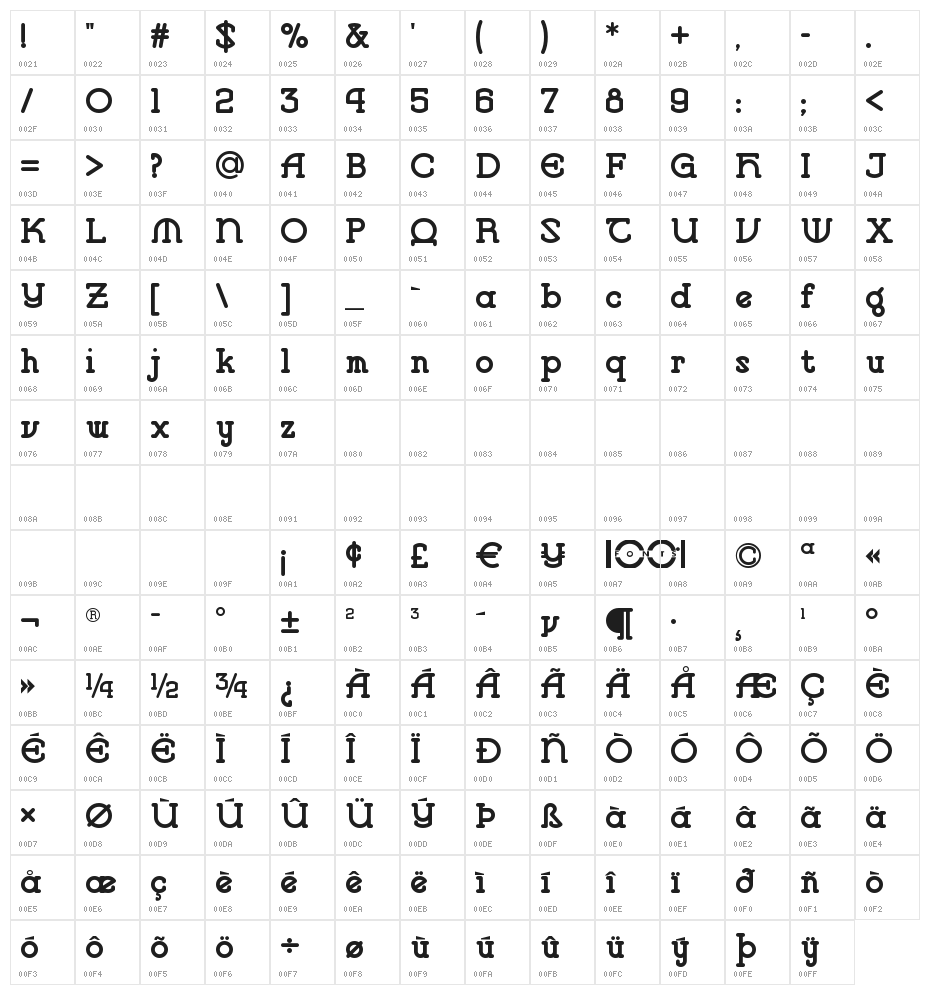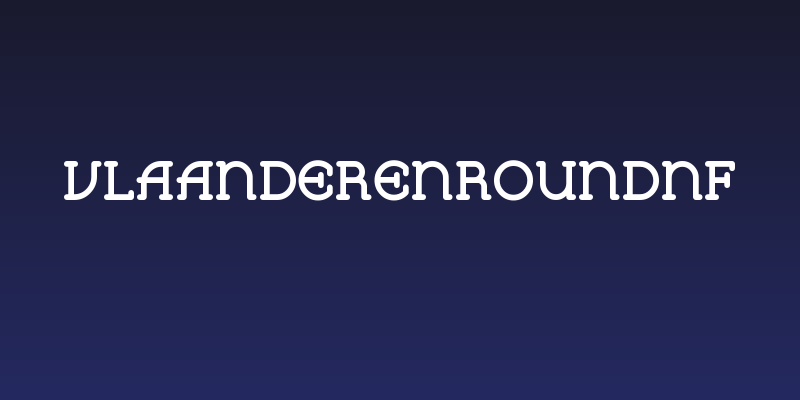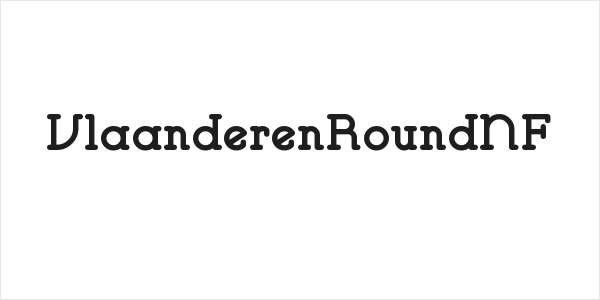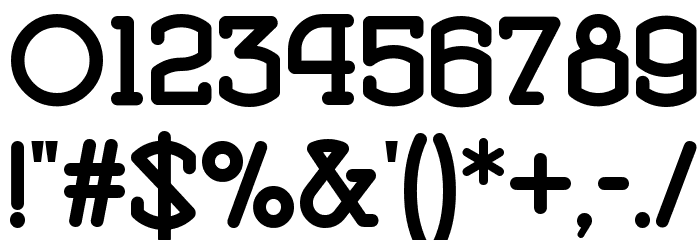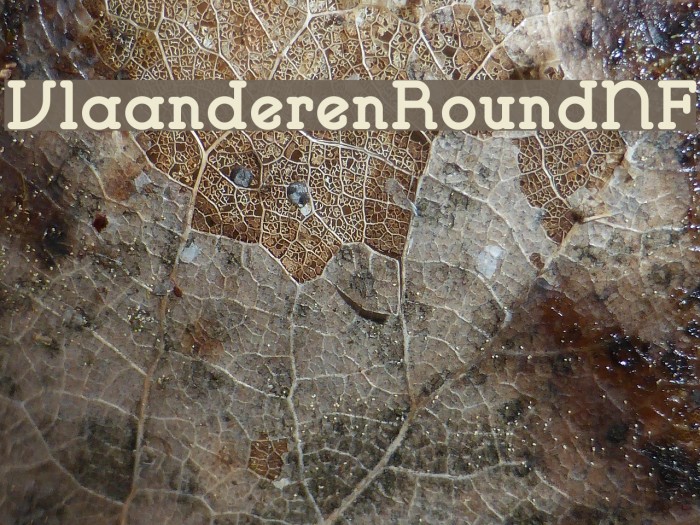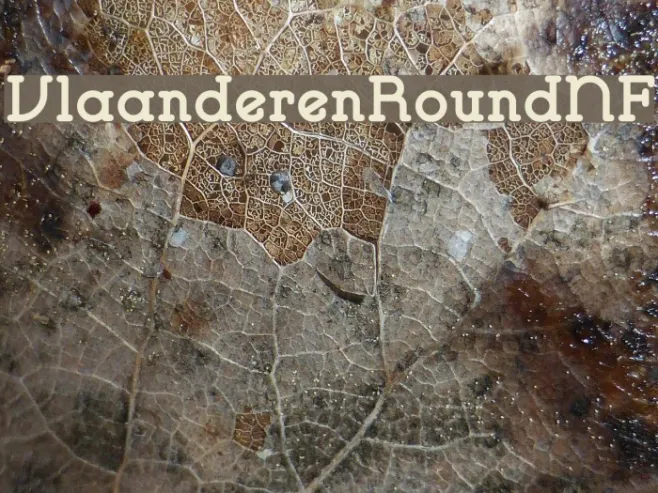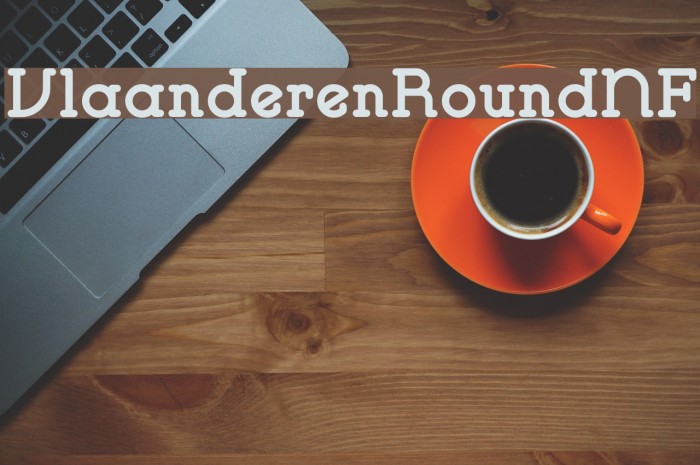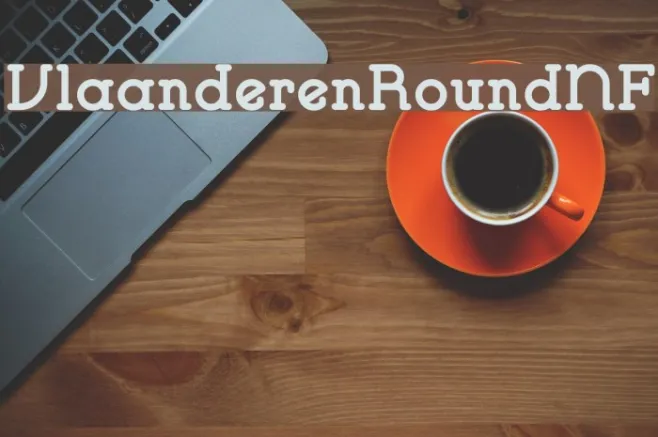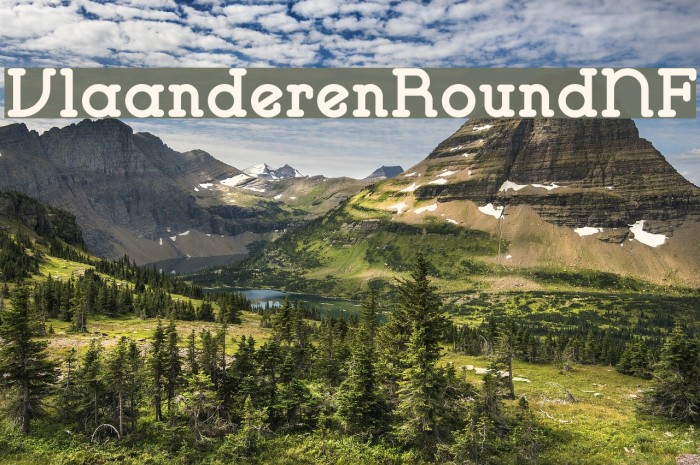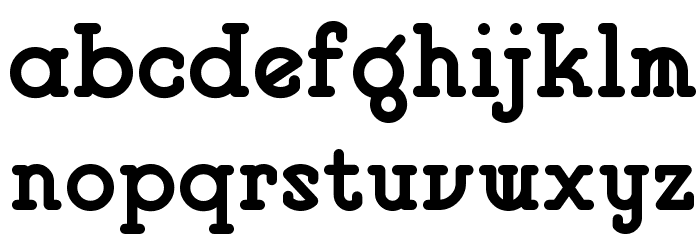
VlaanderenRoundNF Font
VlaanderenRoundNF Description
This font features a playful and rounded design with a distinct retro flair. The characters are bold and have a uniform stroke width, contributing to a cohesive and solid appearance. The rounded terminals and slightly exaggerated curves give it a friendly and approachable feel. The uppercase letters are consistent in height, while the lowercase letters maintain a balanced x-height, enhancing readability. The numerals are clear and well-proportioned, making them suitable for various applications. Special characters are included, maintaining the same rounded style, ensuring versatility in design projects.
| Overall Style | Retro, Playful |
| Proposed Projects | Ideal for branding, packaging, children's books, and retro-themed designs. |